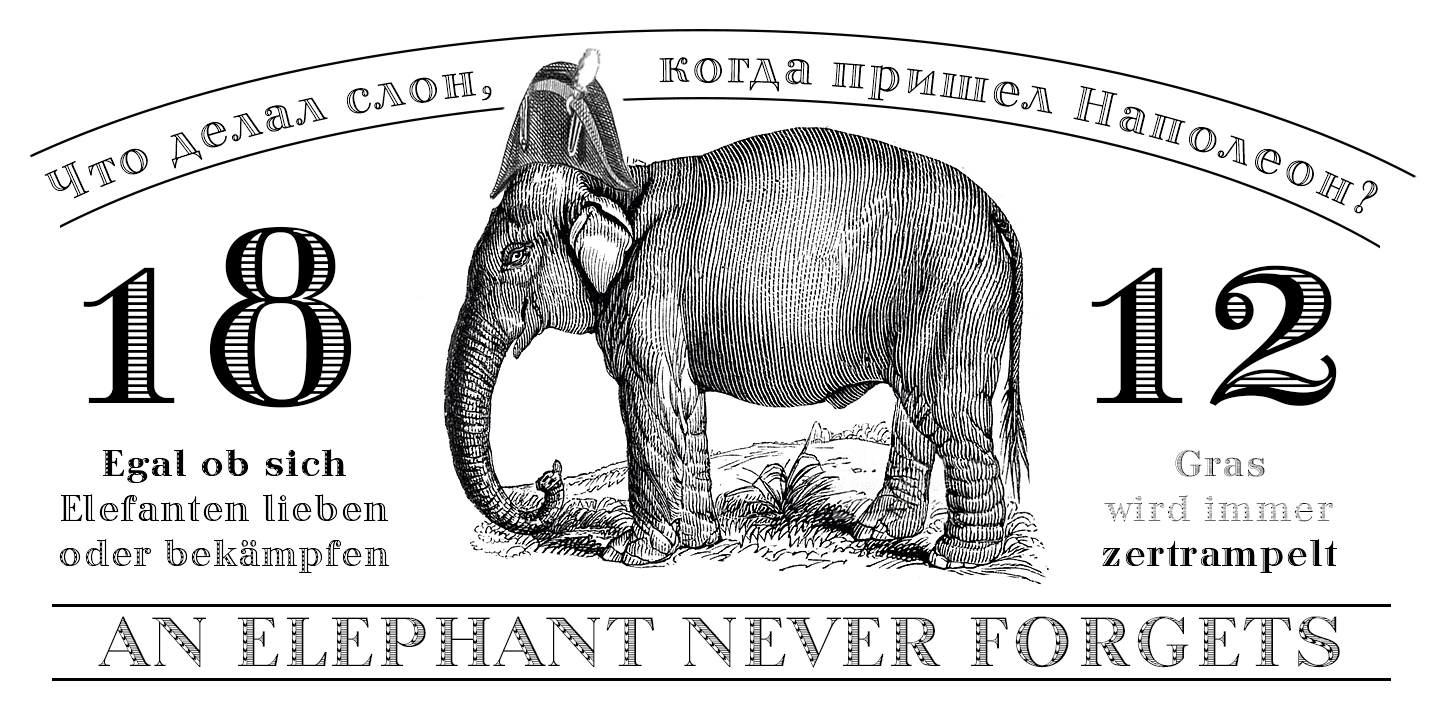
1812 Font is perfect for historical war documentaries, Napoleonic era museums, early 19th century educational materials, military heritage exhibitions, classical symphony programs, patriotic commemorative materials, War of 1812 anniversary events, historical novel covers, period drama productions, and authentic historical recreations.
What makes 1812 Font exciting is its historical authenticity and early 19th century elegance that captures the essence of the Napoleonic era with period-accurate sophistication and military precision. This distinguished typeface embodies the spirit of early American independence with its classical character forms and war-era proportions that evoke handwritten military dispatches, formal proclamations signed by generals, and the kind of dignified typography that documented one of history's most pivotal conflicts. The font's historical character creates an immediate connection to American heritage and the decisive moments that shaped national identity.
1812 Font family includes regular weight with historically crafted character designs featuring period-accurate proportions and military styling. The typeface maintains exceptional readability while showcasing its distinctive war-era personality through authentically designed letterforms that reflect the formal documentation standards and typographic traditions of early 19th century military and governmental communications.
Historical institutions consistently select 1812 Font Free Download for projects requiring authentic period appeal and war-era credibility. This remarkable typeface brings the dignity of historical documentation to modern communications, combining period aesthetics with educational functionality to create meaningful historical experiences. The historically designed characters ensure authentic positioning across all applications, making it essential for museums, educational publishers, and any institution seeking to communicate the historical significance and patriotic heritage that defines the War of 1812 and early American independence through 1812 Font Free Download.